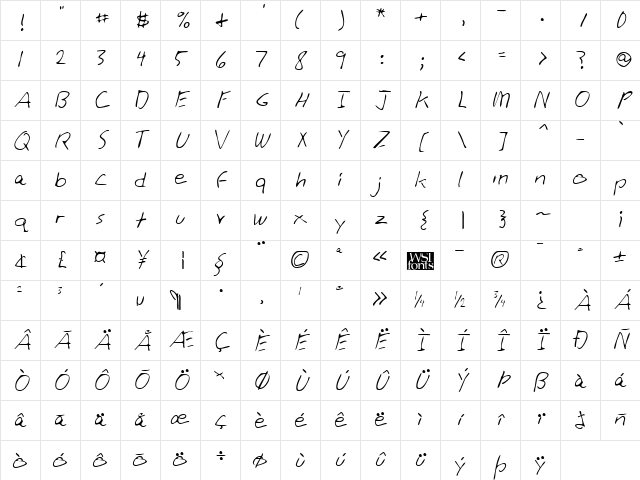
AlisonsHand Regular
Design Context for AlisonsHand
AlisonsHand flows with the natural rhythm of handwritten lettering, making it ideal for designs that call for warmth and personal expression.
Font Pairing: Combine AlisonsHand with a simple geometric sans for maximum contrast - the tension between flowing curves and clean structure is a classic typographic pairing.
Pro Tip: Use AlisonsHand for short runs of text - names, titles, or taglines. Extended body copy in script faces tires the eye quickly.